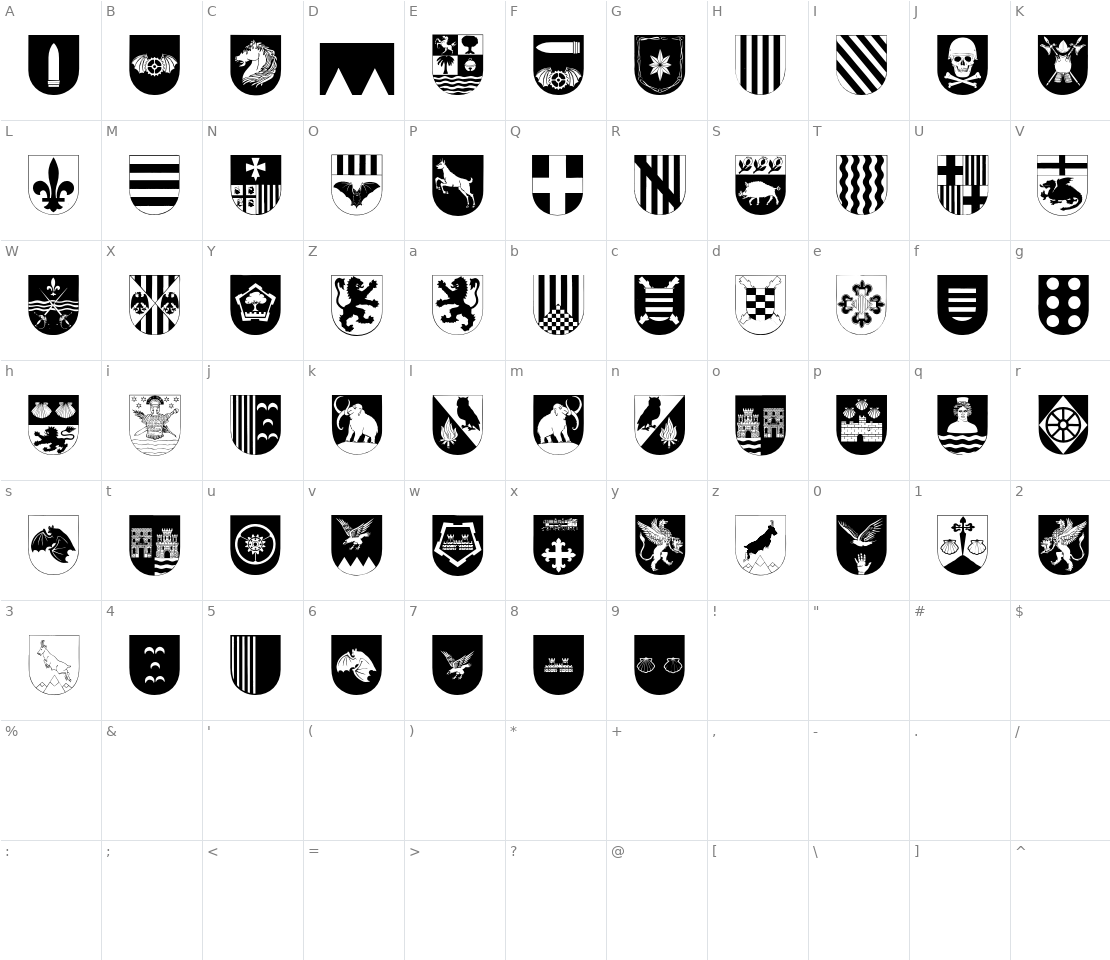
Spanish Army Shields Two
Spanish Army Shields Two is an ornamental font from Intellecta Design containing a collection of heraldic shield designs inspired by Spanish military coats of arms. Each glyph is a detailed emblem rather than a letter, drawing on medieval and military heraldic traditions. Useful as decorative elements in historical publications, themed invitations, or anywhere that calls for authentic-looking heraldry without commissioning custom illustrations.